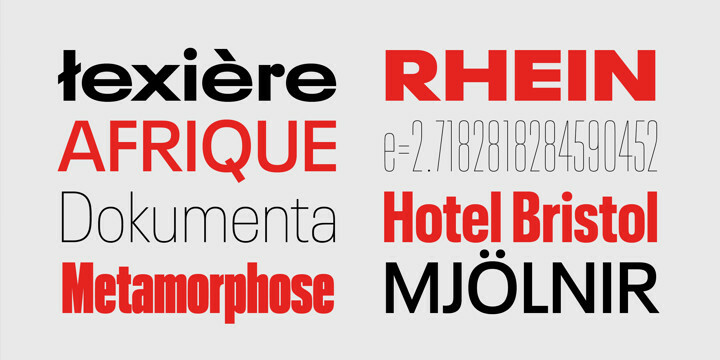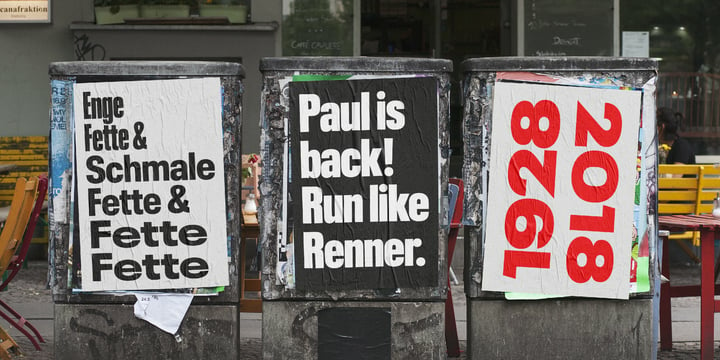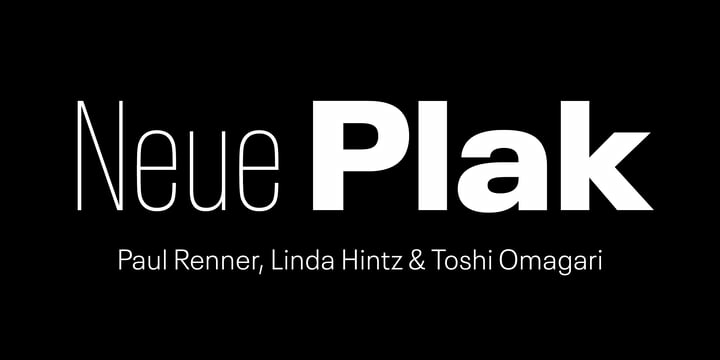
Neue Plak Font Family
Neue Plak Font FamilyOriginally designed in 1928, Plak is something of a lost gem in the type world. Despite being drawn by Futura creator Paul Renner, it never achieved the same popularity and spent decades lacking a much-needed digital revival. Monotype designers Linda Hintz and Toshi Omagari have taken its existing three weights and, after extensive research into the original wood type, extended them into the vast Neue Plak family. The typeface is available in 60 weights that stay true to Renner’s intentions, and offer the same blend of “quirky” details and “German stiffness” – as Hintz describes it. The design is an unusual mixture, bringing together a defiant outer appearance that’s counteracted by more playful details found in the lowercase r, and the large dots of the lowercase i. Other distinctive details include open or strikethrough counters, and a set of hairline widths that reduce Renner’s original design to its bare bones. Neue Plak’s display weights are crying out to be used in editorial, on packaging or in logos, while its text weight works well in both print and digital environments.